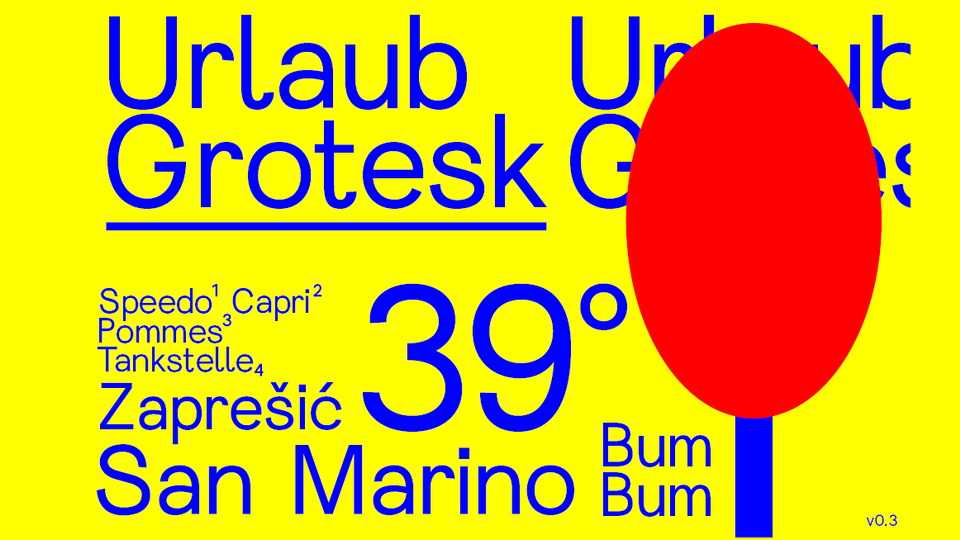
Download Urlaub Grotesk font, a contemporary sans serif typeface with a unique personality. Urlaub Grotesk is great for posters, headlines as well as body text.
Designer: Jonas Schneider